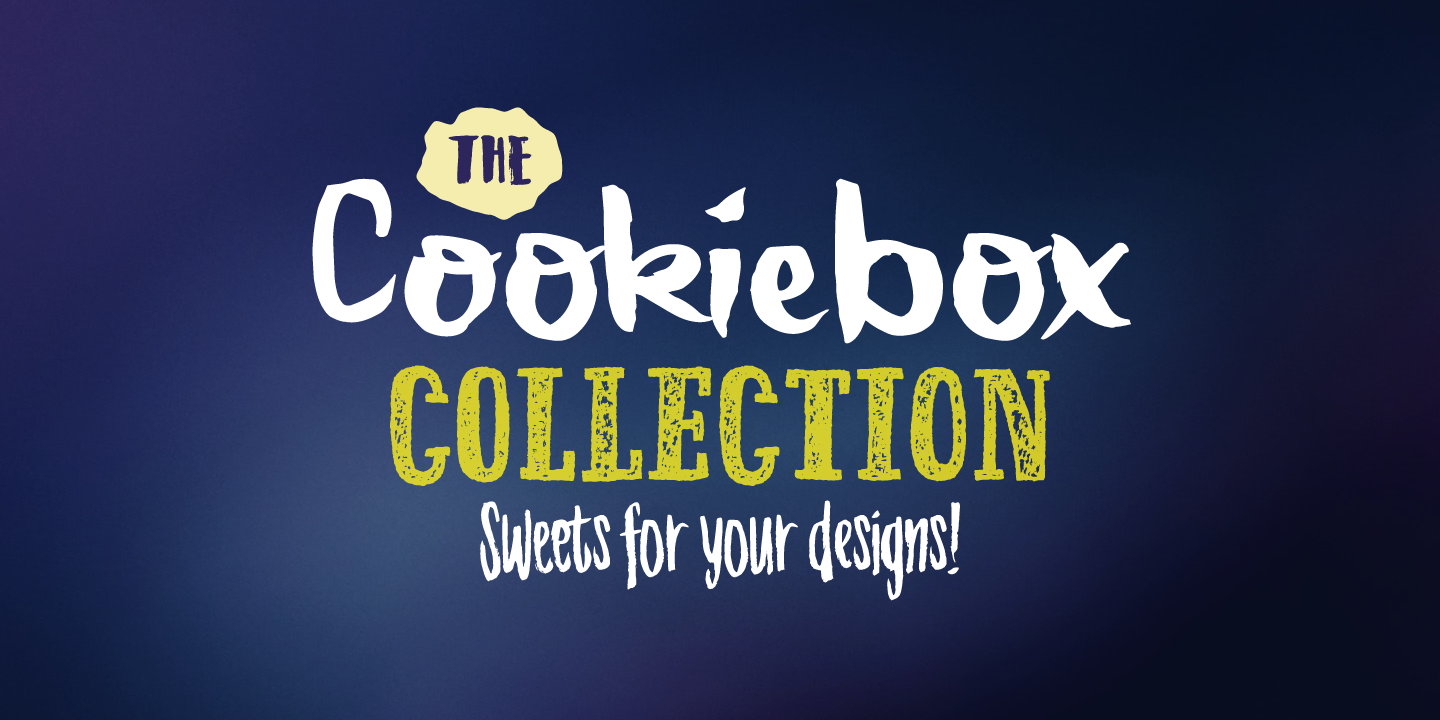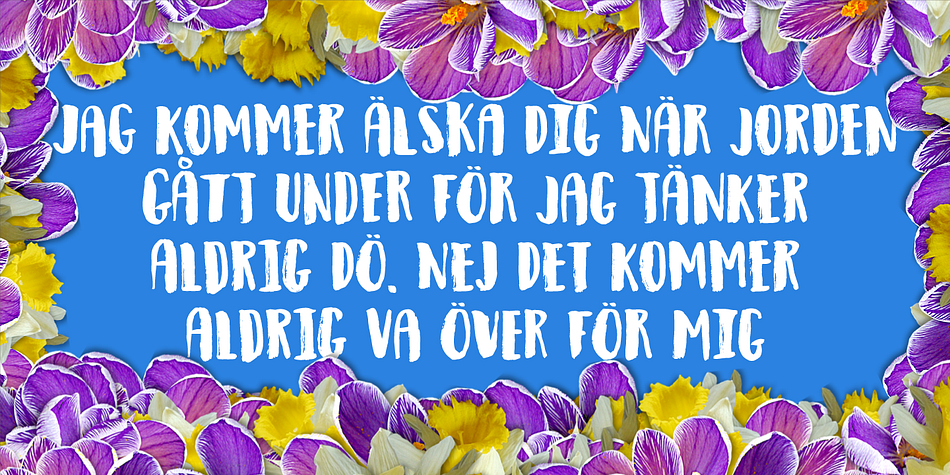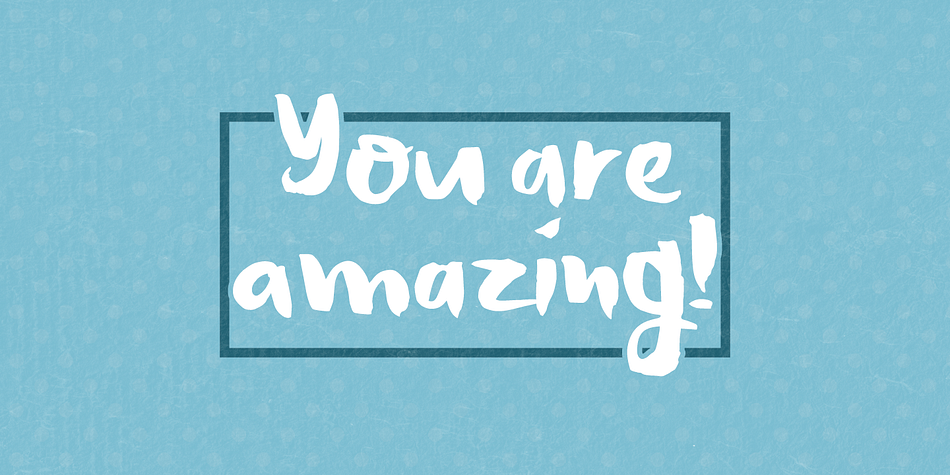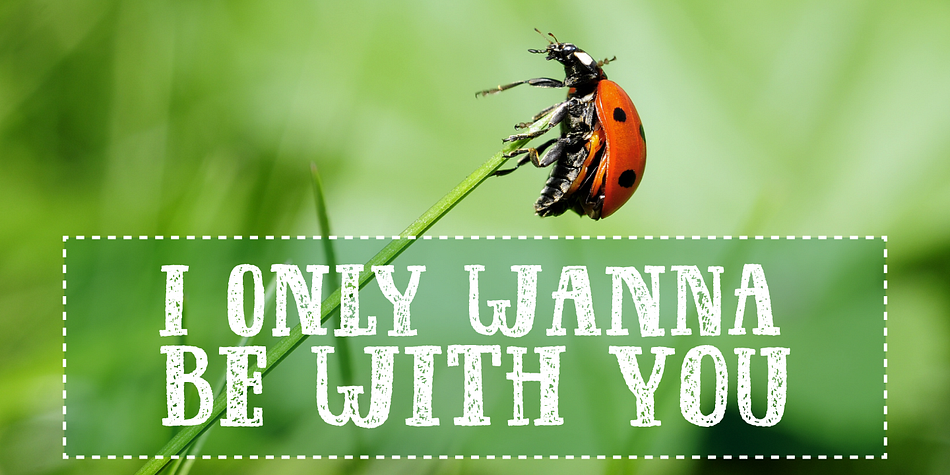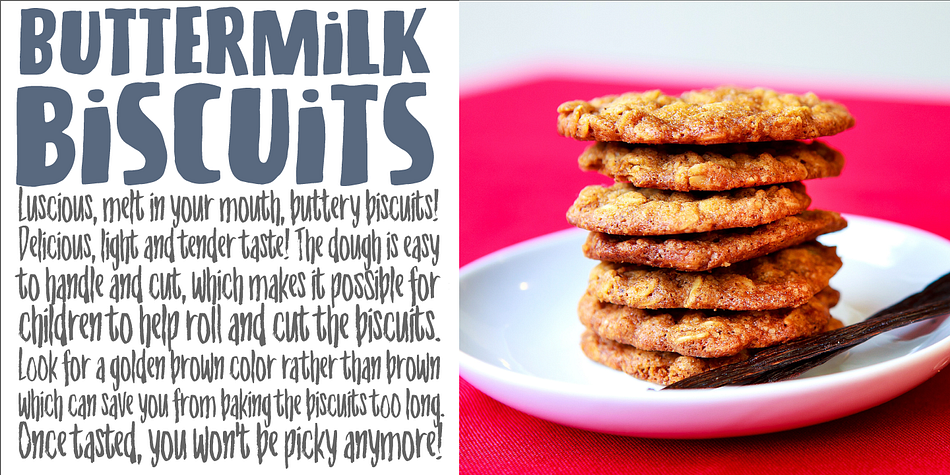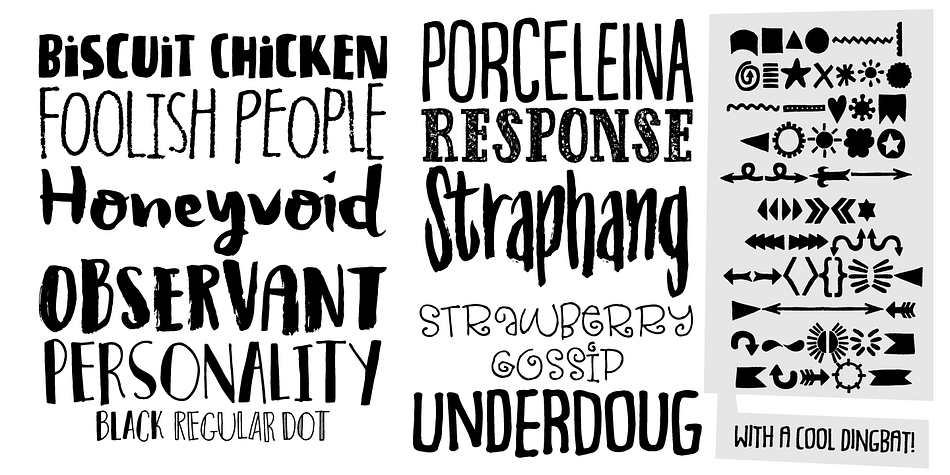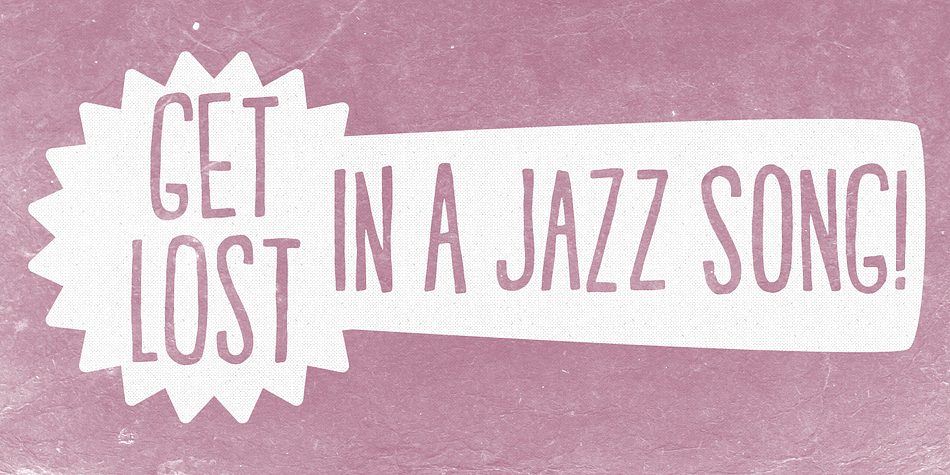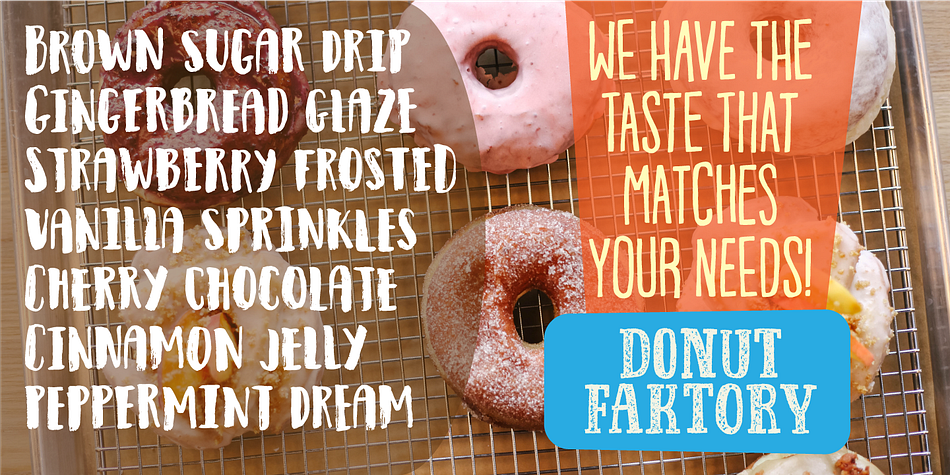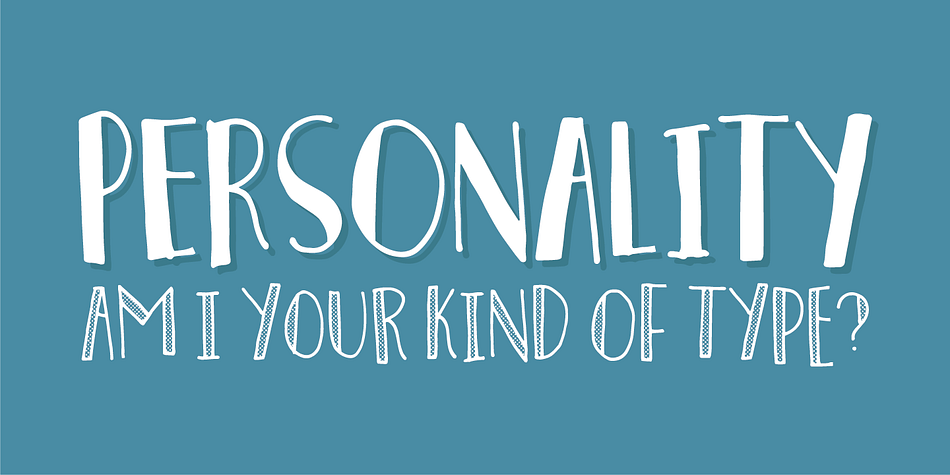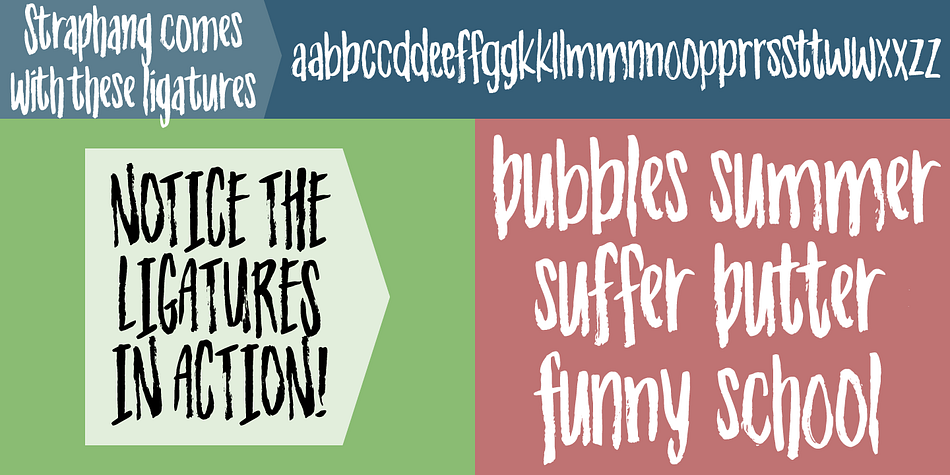
Cookiebox Collection is a multiple classification font collection published by Pizzadude.dk.
A cookie box always brings out a smile. It’s because everybody knows that it holds an amazing amount of alluring treats!
This generous cookie box has got a lot of delicious surprises, in the shape of different handmade fonts. Each and every one has it’s own personality and expression, and every single one of them is great for projects such as posters, postcards, greeting cards and alike. Together they stand strong and support each other in making any product or presentation more versatile and powerful.
Styles | Brush Display, Brush Script, Hand Display, Hand Drawn, Kids, Dingbat |